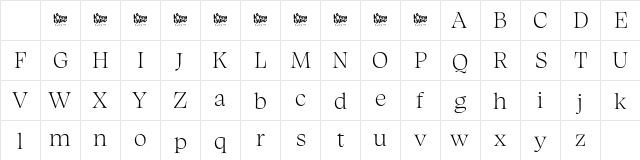
Charlea Demo ExtLt Regular
Foundry: Kereatype
Designer: Amal Yusuf
Design Context for Charlea Demo ExtLt
Charlea Demo ExtLt is a composed and adaptable typeface that performs quietly and consistently across a wide range of design contexts.